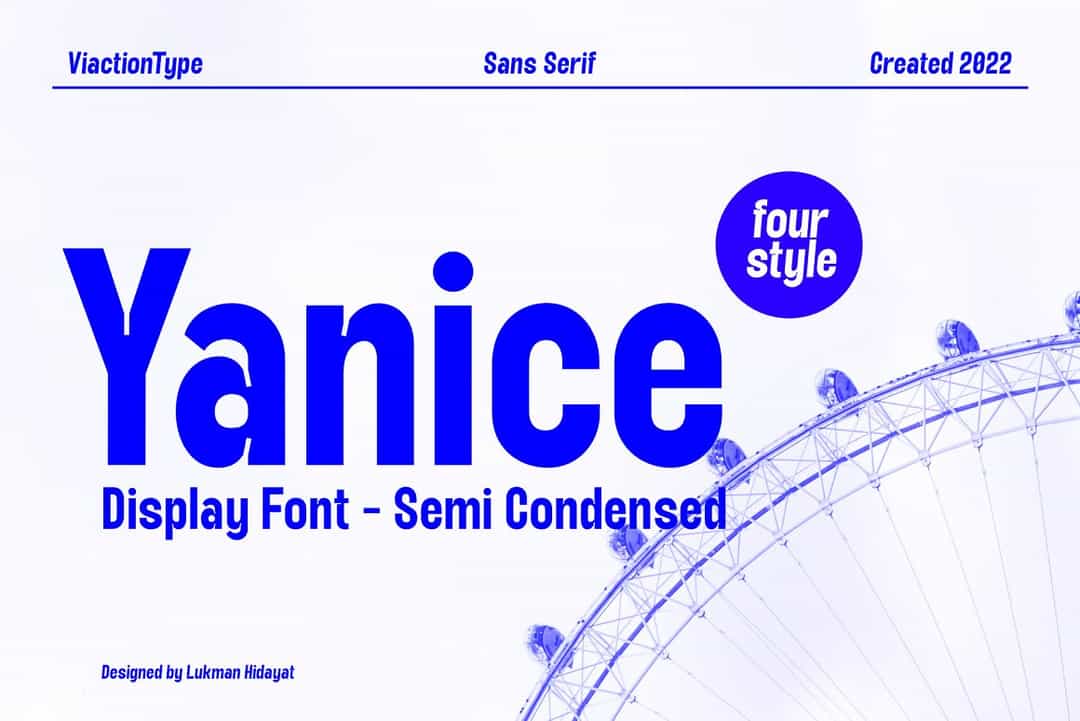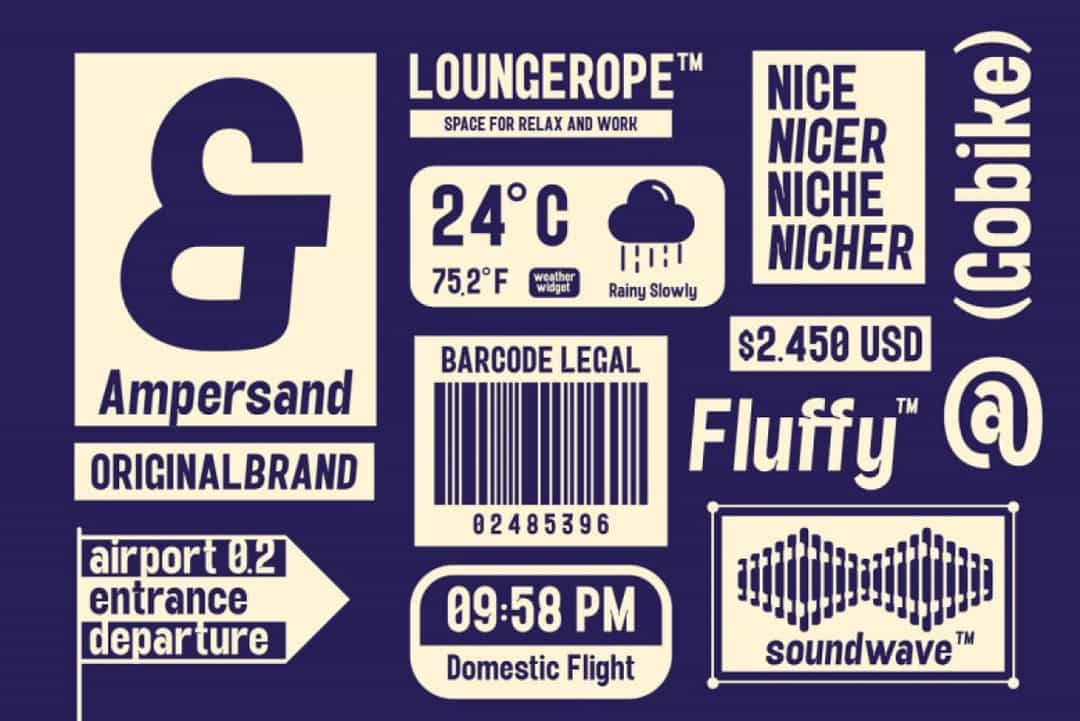
Yanice is an elegant and sophisticated semi-condensed sans serif font perfect for contemporary and industrial themes, featuring four styles to meet your specific needs. Buy this font today at an affordable price to increase productivity!